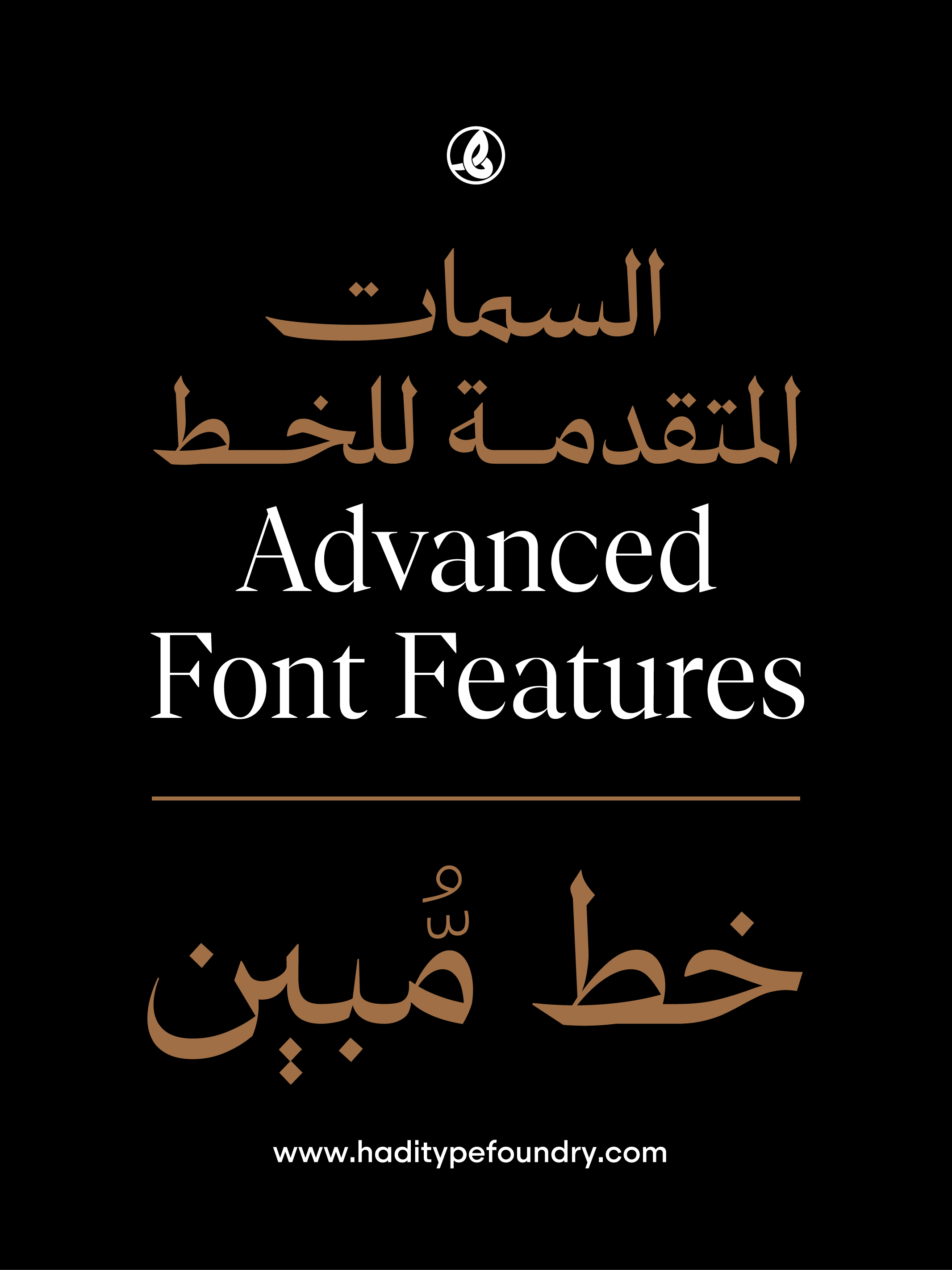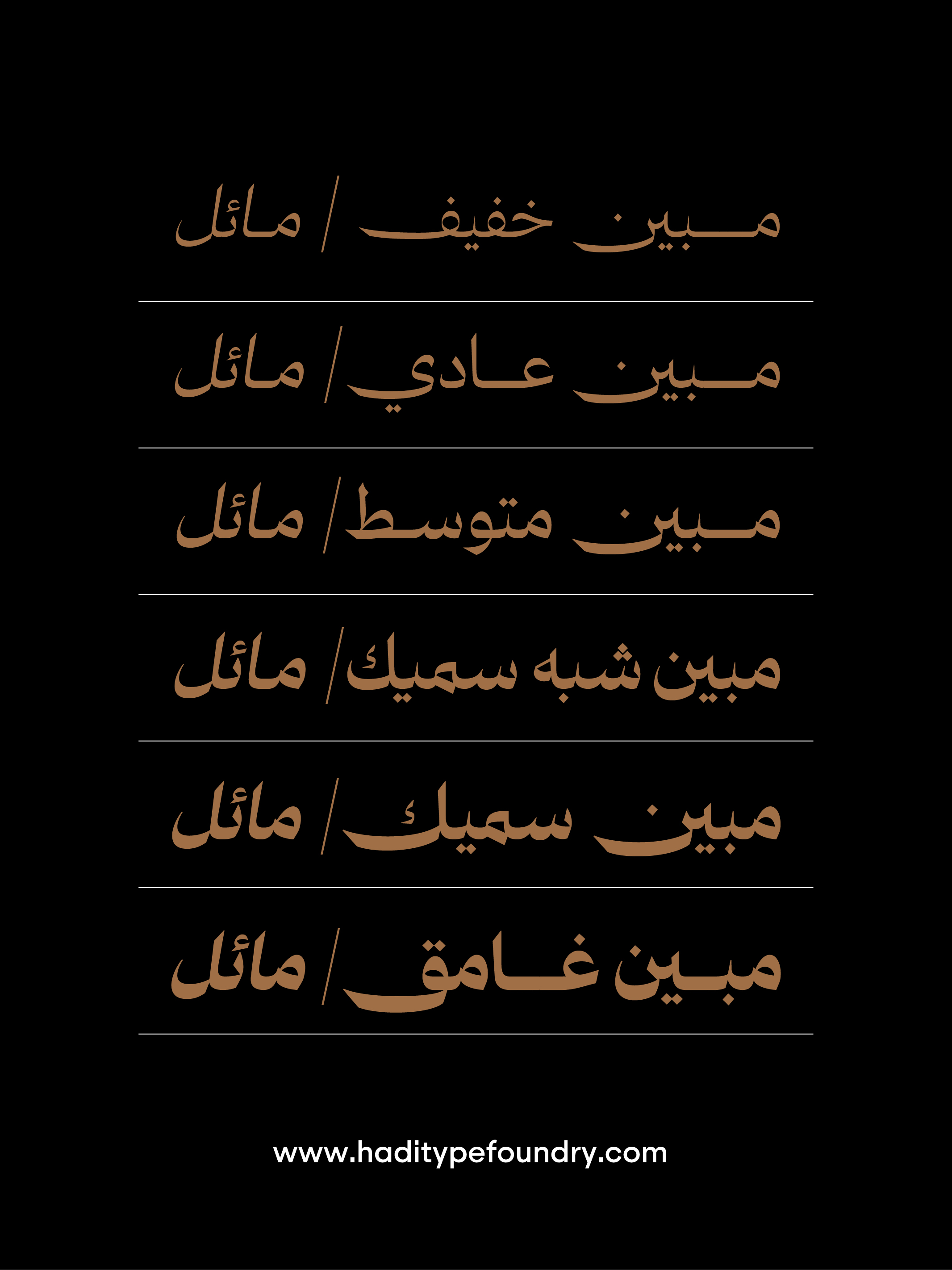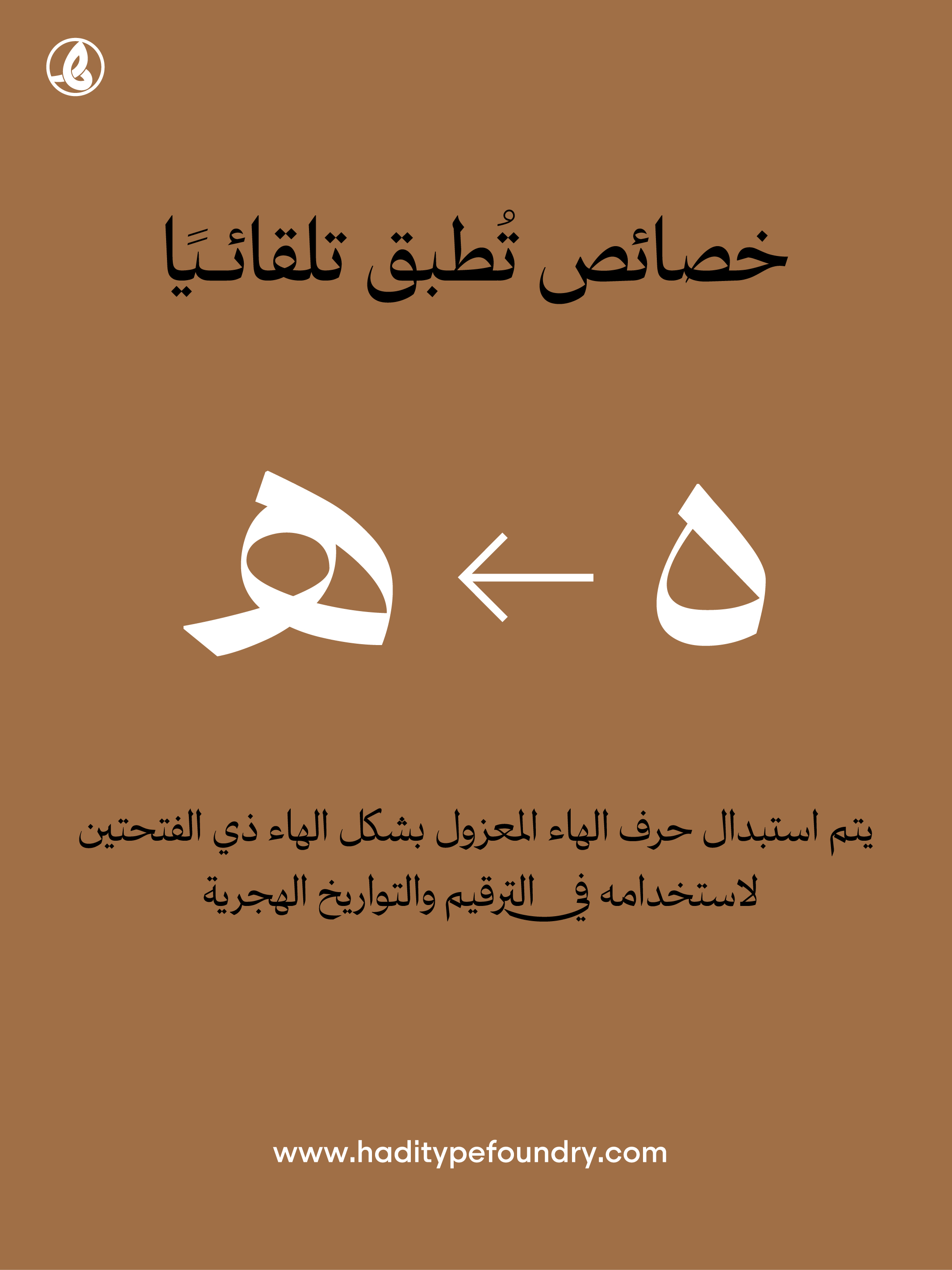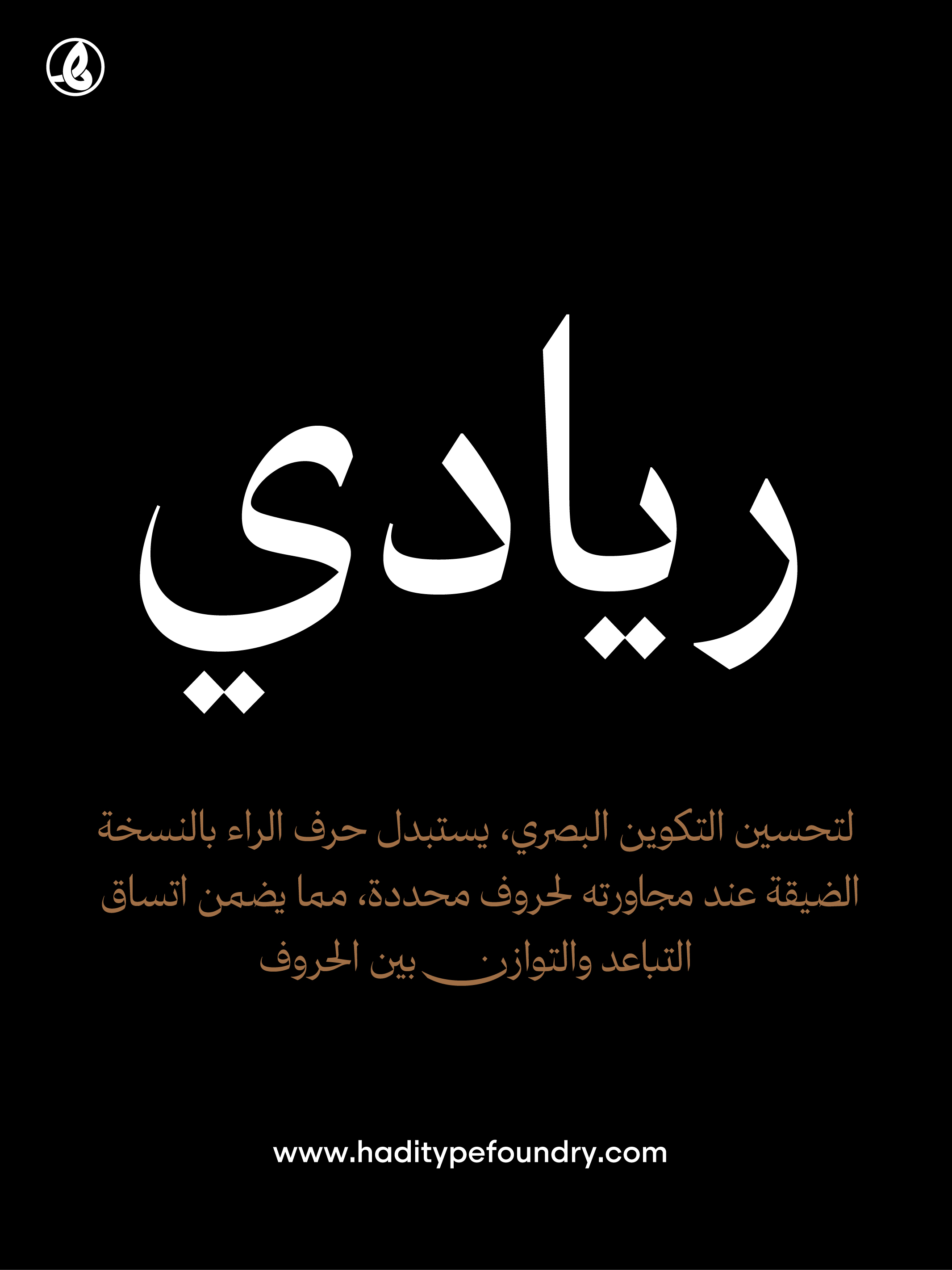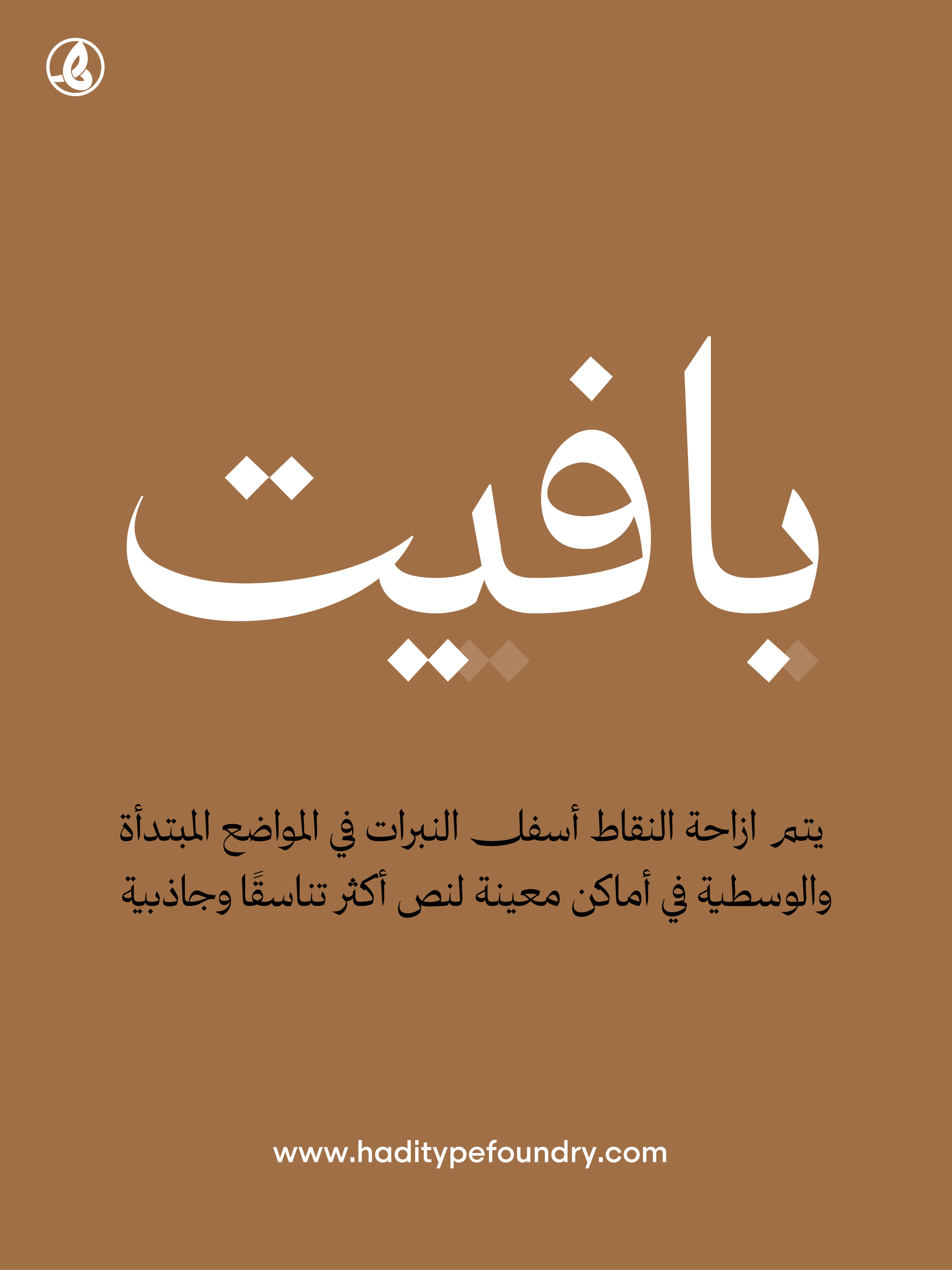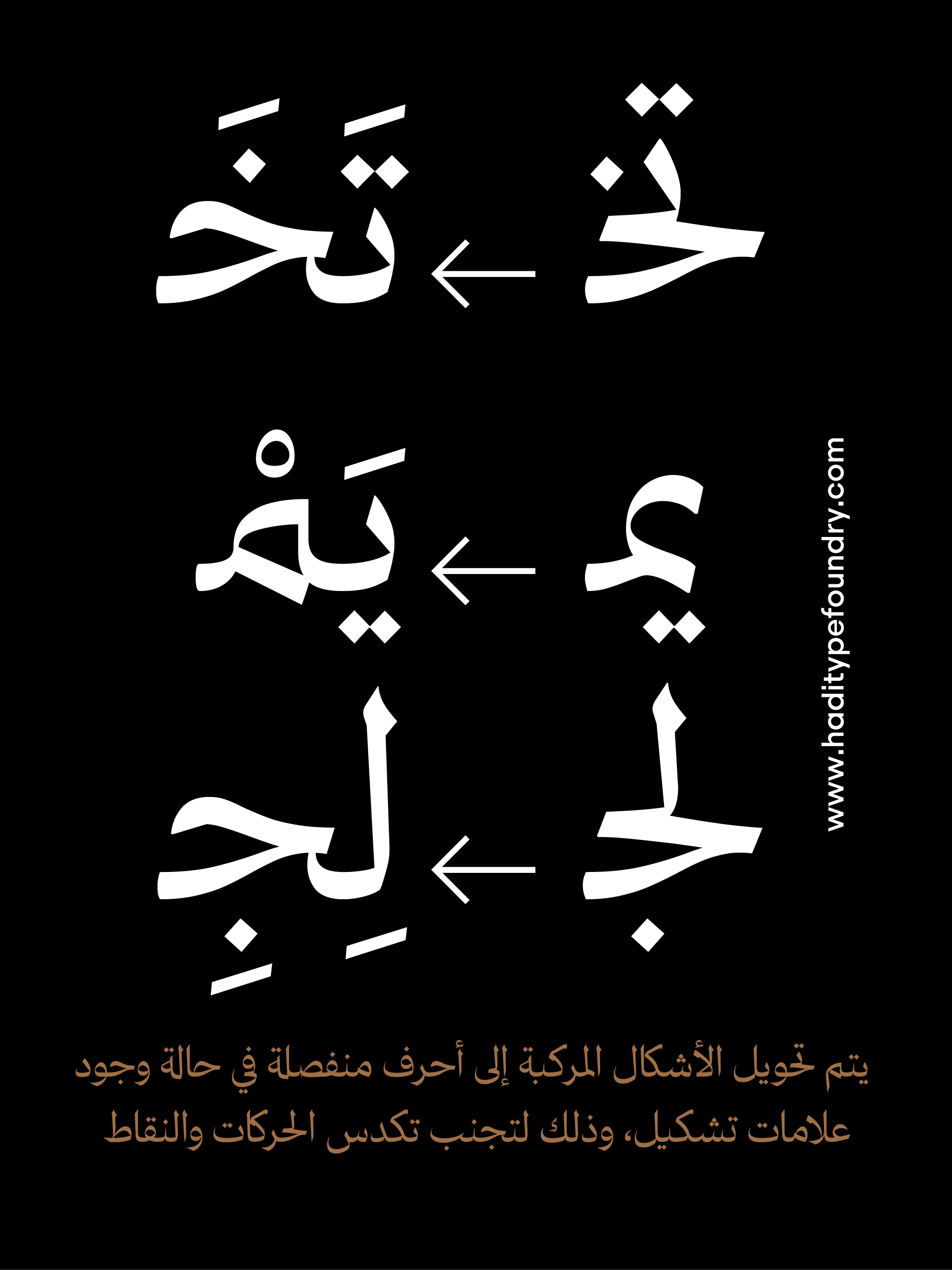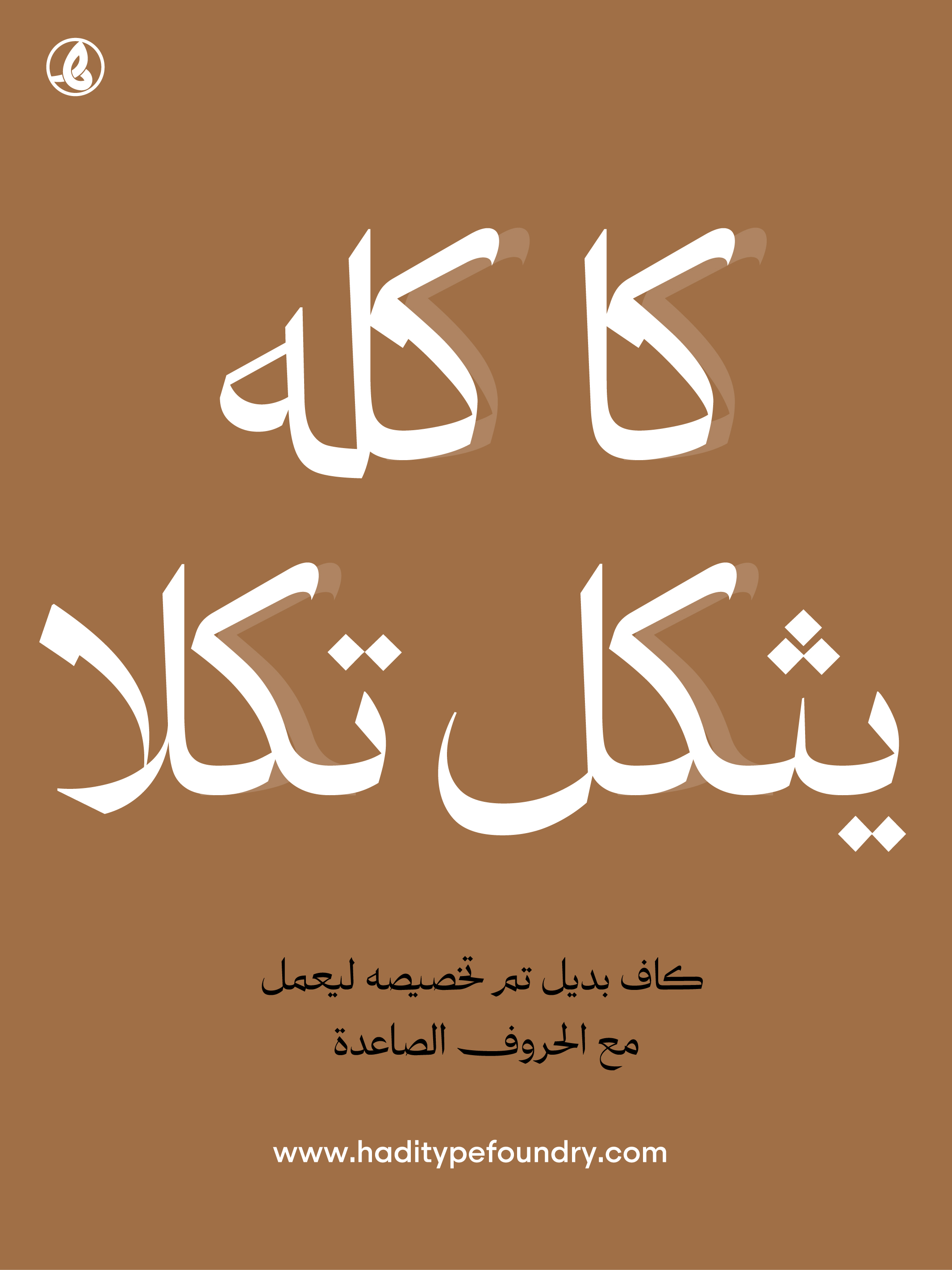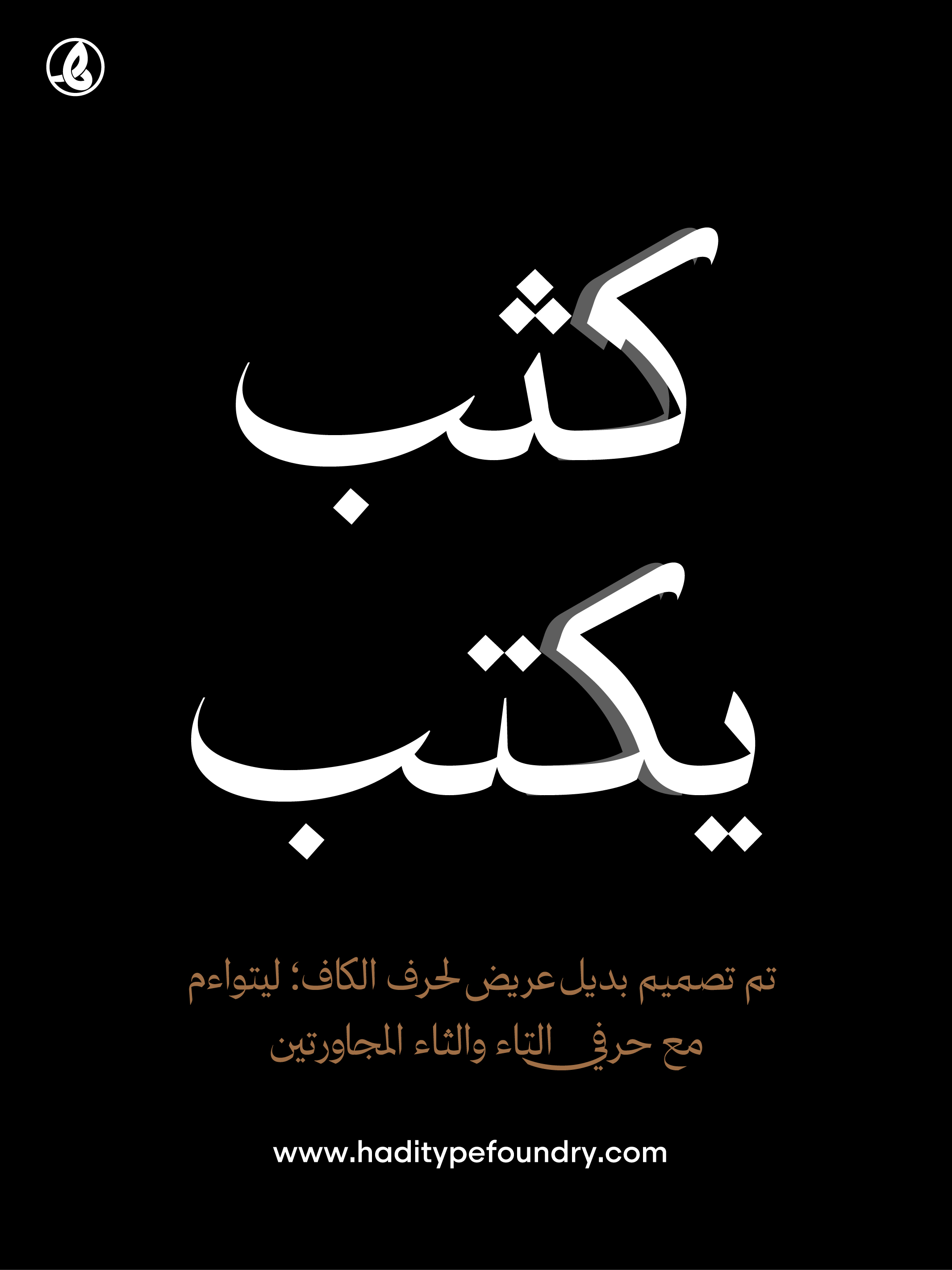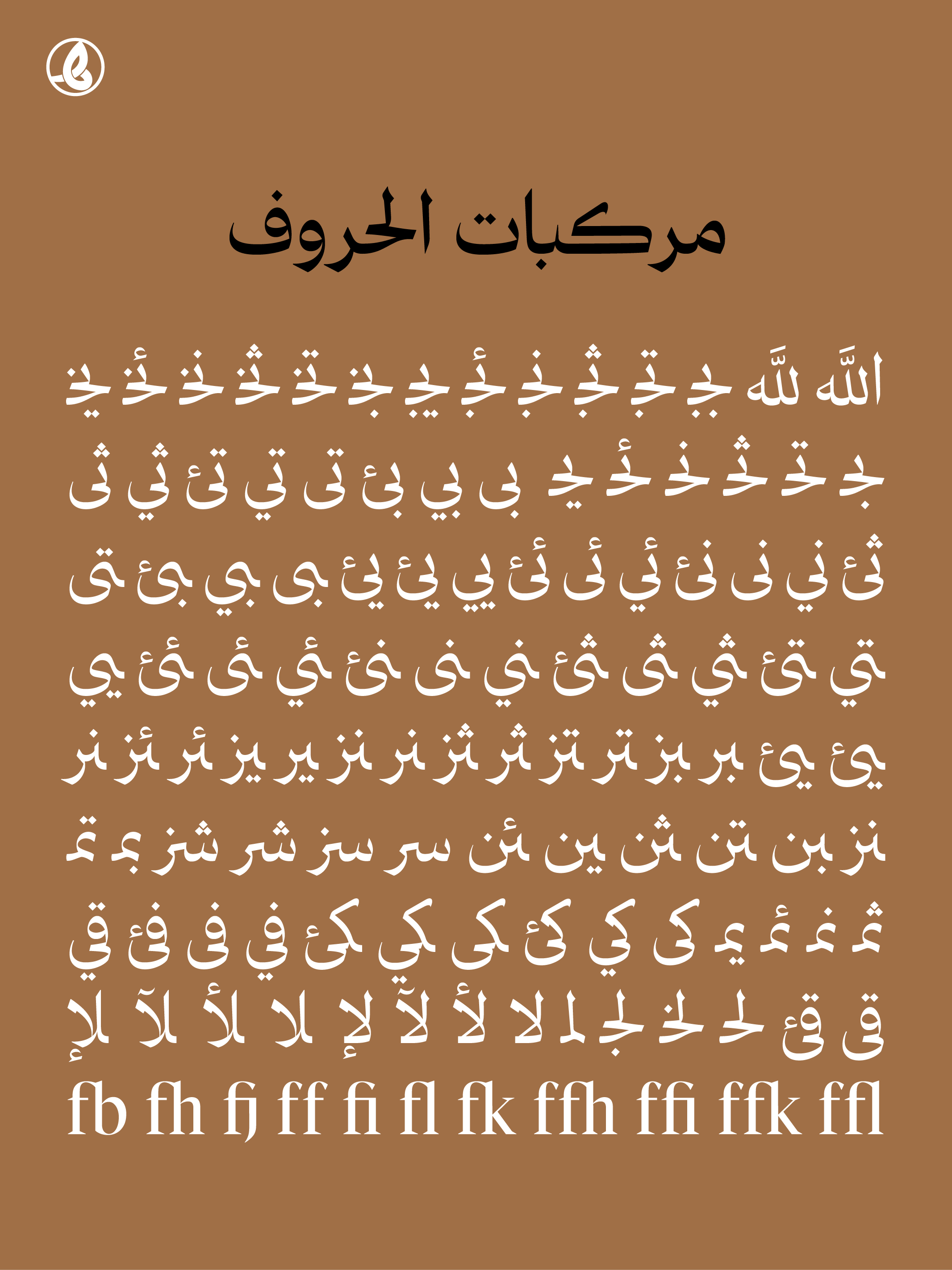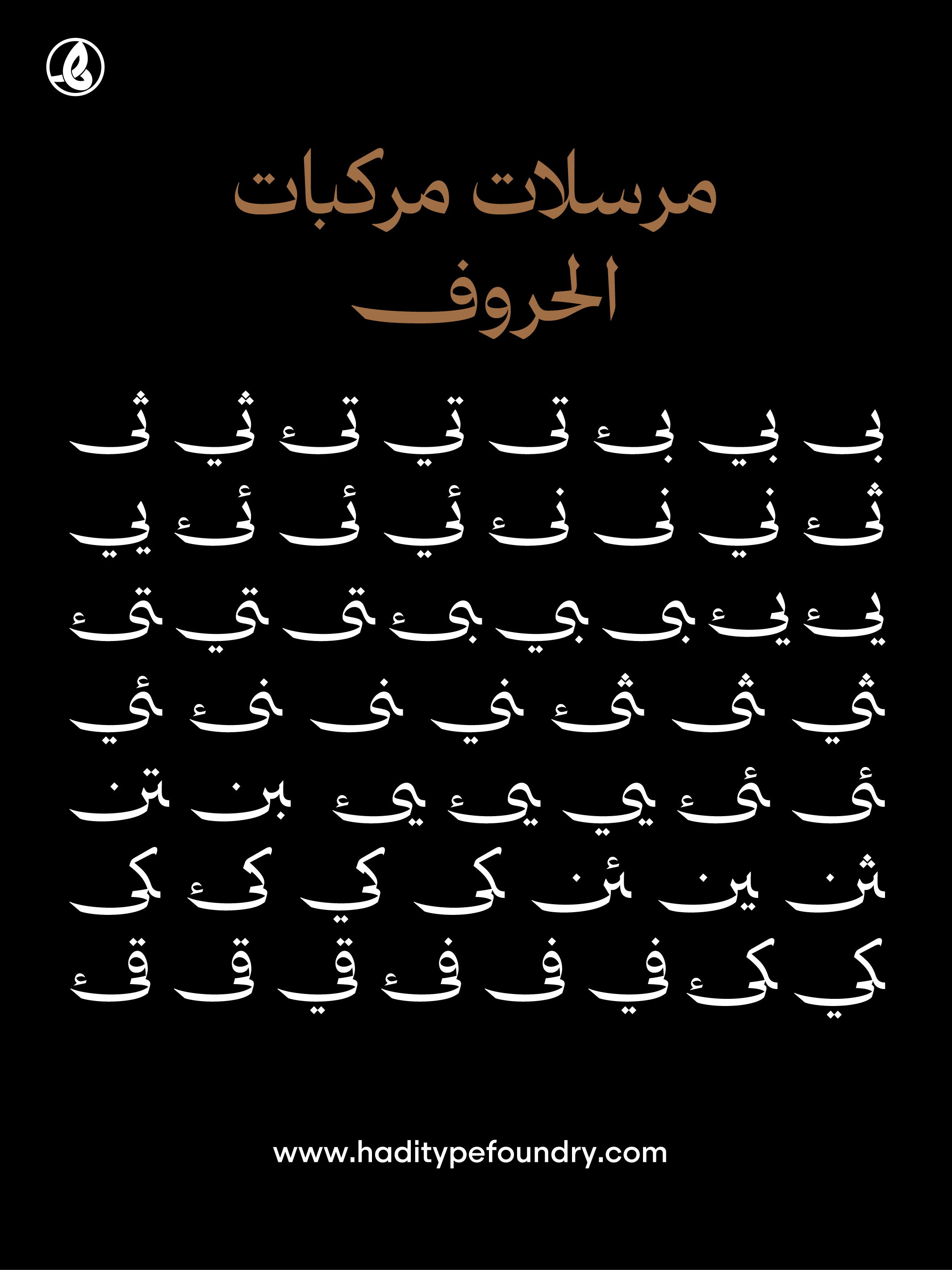
HT Mubin
النسب المتوازنة
الديناميكية المعمارية
التكوين البصري
أناقة البساطة
HT Mubin is a contemporary multilingual Naskh typeface designed to bridge the elegance of classical Arabic calligraphy with the needs of modern editorial and branding design.
Built for sophisticated typography, HT Mubin delivers exceptional readability while preserving the warmth, rhythm, and personality of traditional Naskh. Its carefully balanced proportions, refined terminals, and extensive OpenType features make it equally comfortable in headlines, publishing, cultural projects, premium branding, and multilingual identities.
The family includes Arabic, Latin, and extended language support, offering a harmonious typographic experience across multiple writing systems.
Whether used for books, magazines, luxury brands, museums, architecture, or corporate identities, HT Mubin provides a timeless voice with contemporary precision.